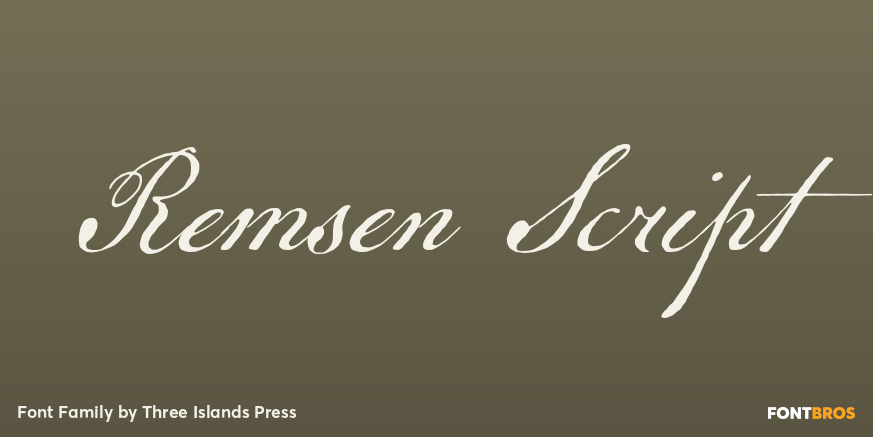
Remsen Script
About Remsen Script
The 1765 Stamp Act ignited in American colonists a simmering distrust of the distant British Parliament, whose oppressive trade duties they deemed unfair assaults on their rights as English subjects. Before long, of course, this little dustup spawned…